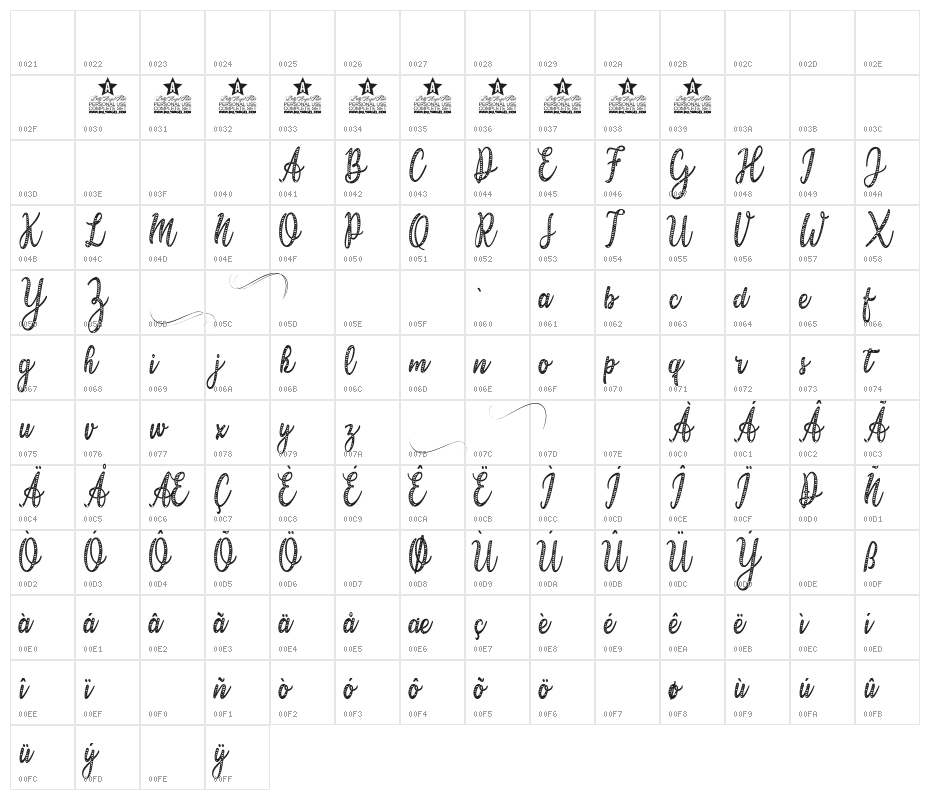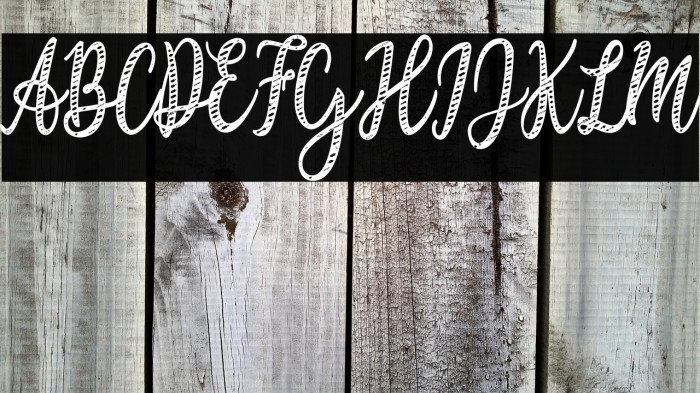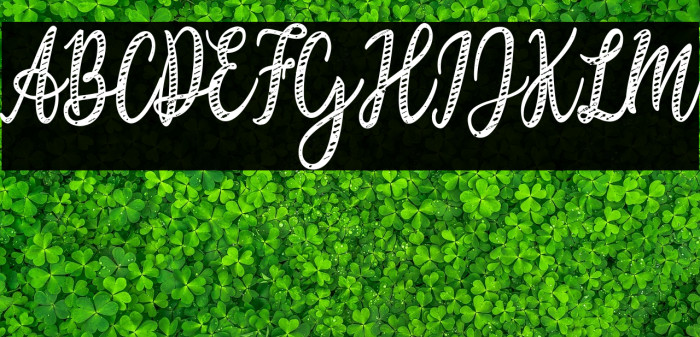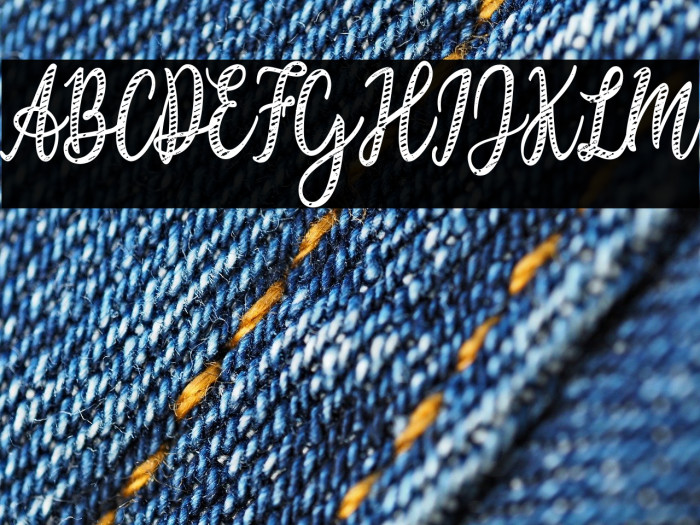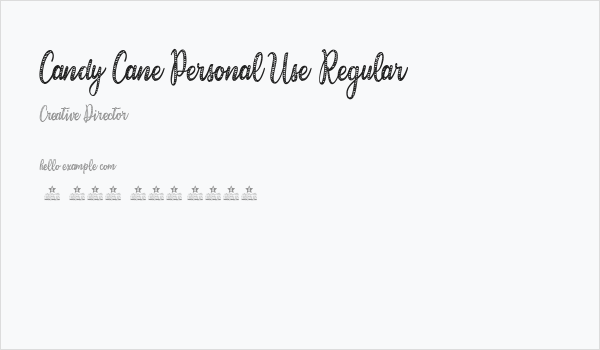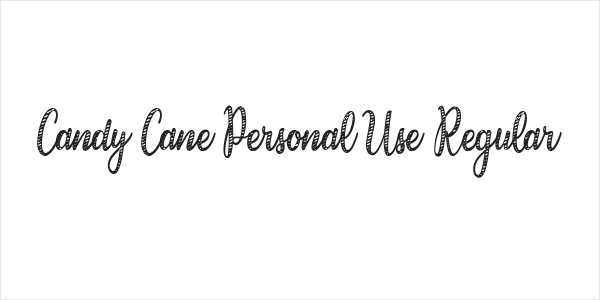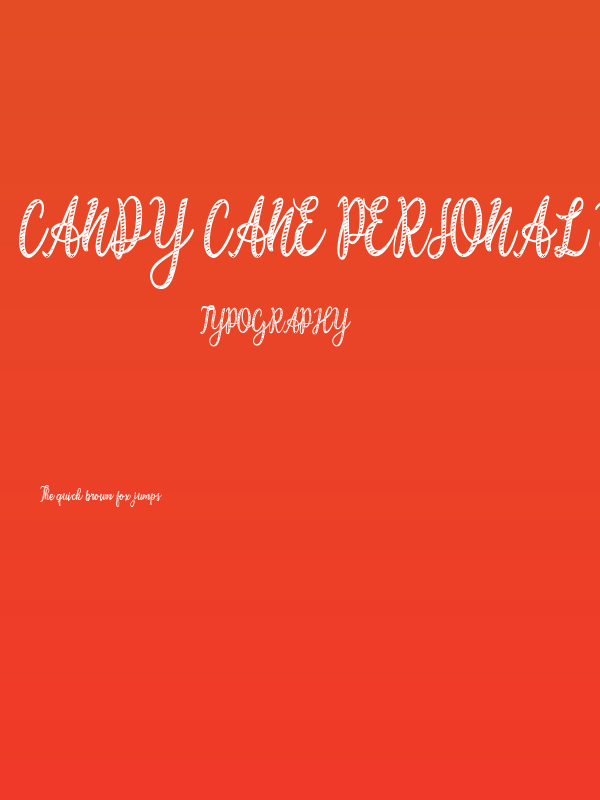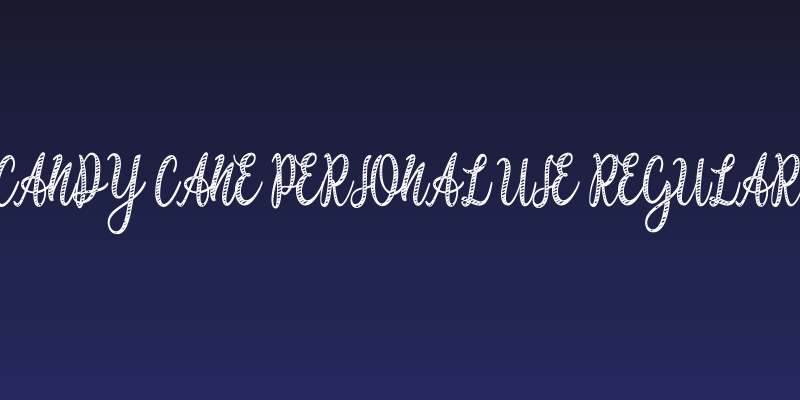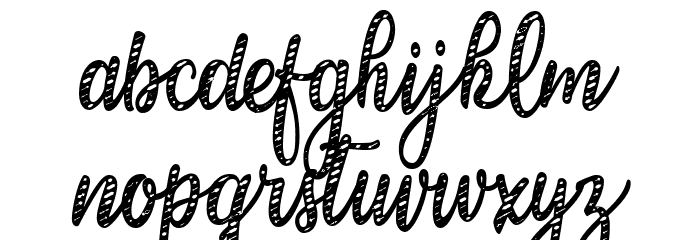
Candy Cane Personal Use Regular Font
Candy Cane Personal Use Regular Description
This font features a playful and decorative style, reminiscent of candy canes with its striped pattern running through each character. The script is cursive and flowing, with a whimsical touch that adds a festive and cheerful vibe. The uppercase and lowercase letters maintain a consistent style, with smooth curves and loops that enhance its decorative appeal. The characters are well-spaced, providing a balanced look that is both eye-catching and legible. This font is ideal for holiday-themed projects, adding a touch of fun and creativity to any design.
| Use Case | Headlines, Logos, Decorative text |
| Proposed Projects | Ideal for holiday cards, festive invitations, playful branding, and decorative posters. |